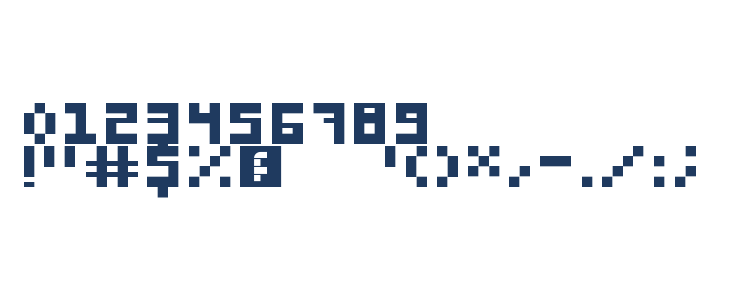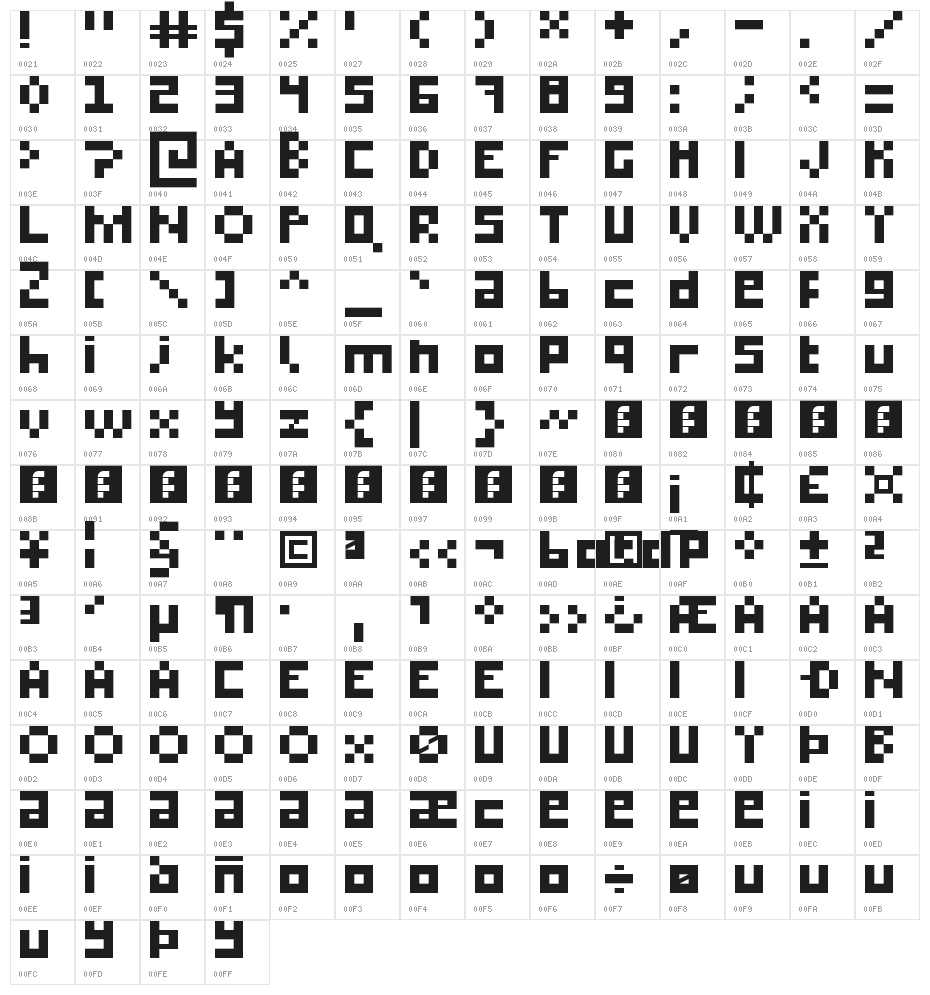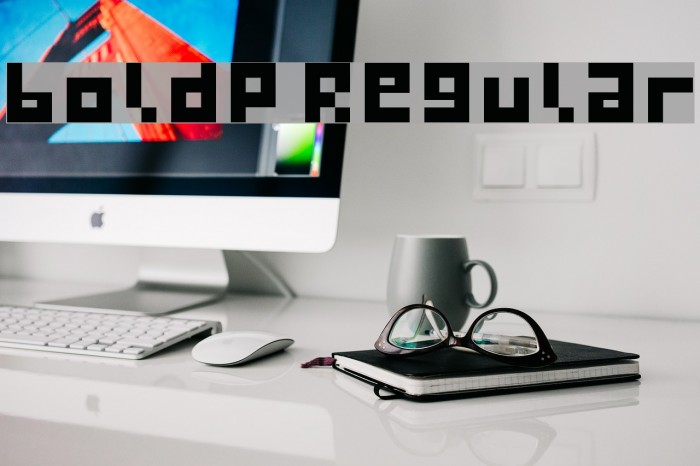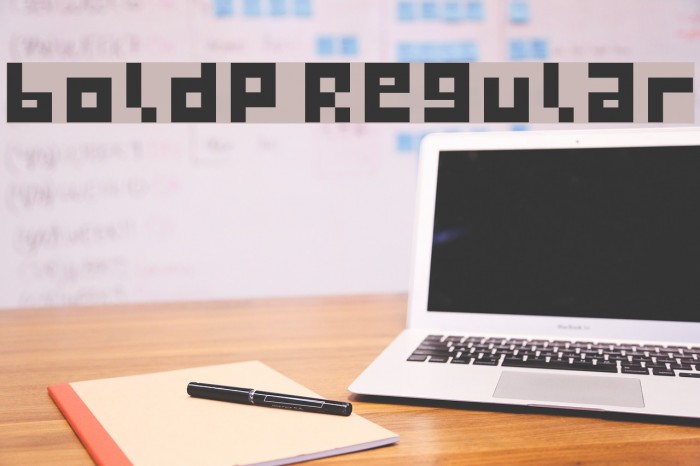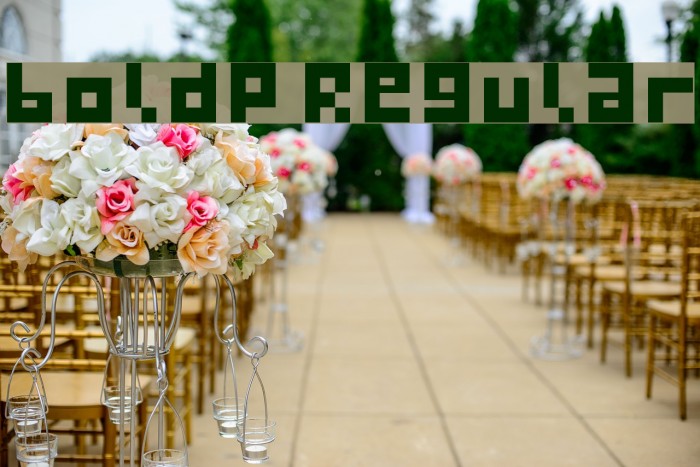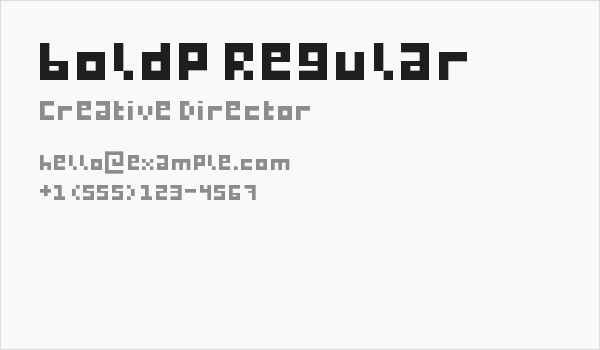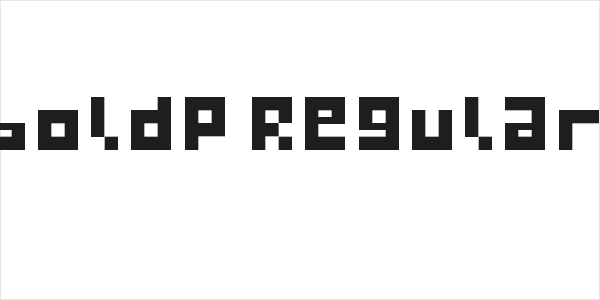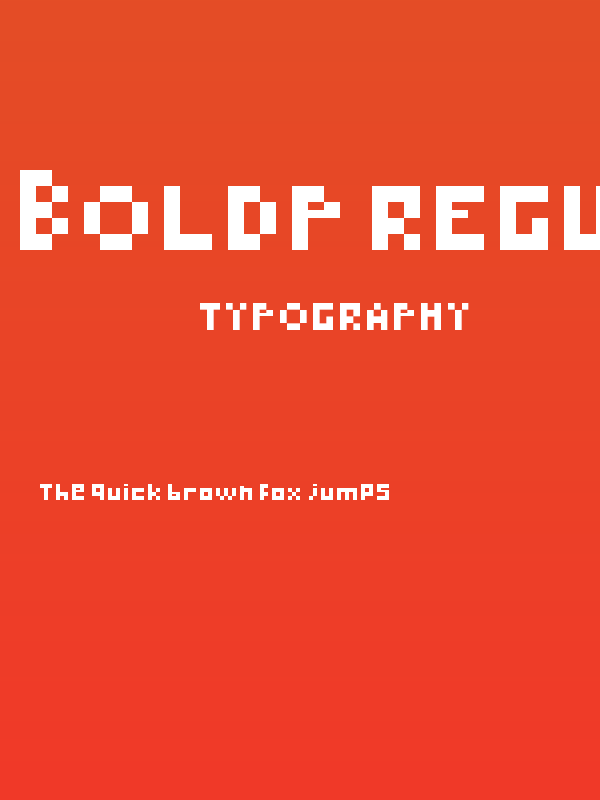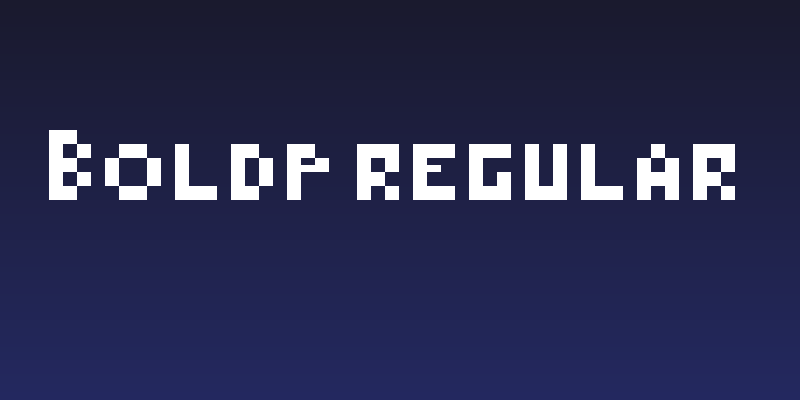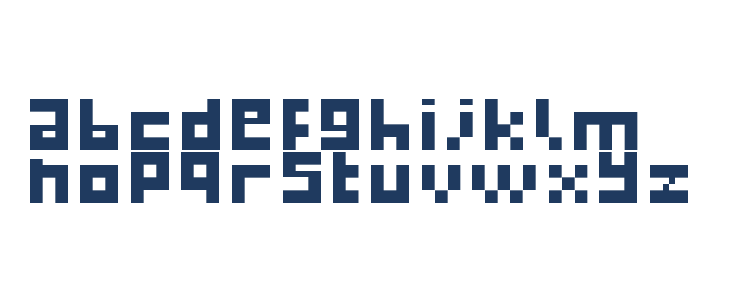
boldp Regular Font
boldp Regular Description
This font features a bold, pixelated style reminiscent of early digital displays and retro video games. Each character is constructed with a blocky, grid-like appearance, emphasizing a geometric and modular design. The uppercase and lowercase letters maintain a consistent height, contributing to a uniform and cohesive look. Numbers and special characters follow the same pixelated theme, ensuring visual harmony across all elements. The font's distinct style is both nostalgic and modern, making it suitable for projects that aim to capture a vintage digital aesthetic.
| Overall Style | Retro, Digital |
| Proposed Projects | Ideal for video game graphics, retro-themed posters, digital art projects, and tech-related branding. |